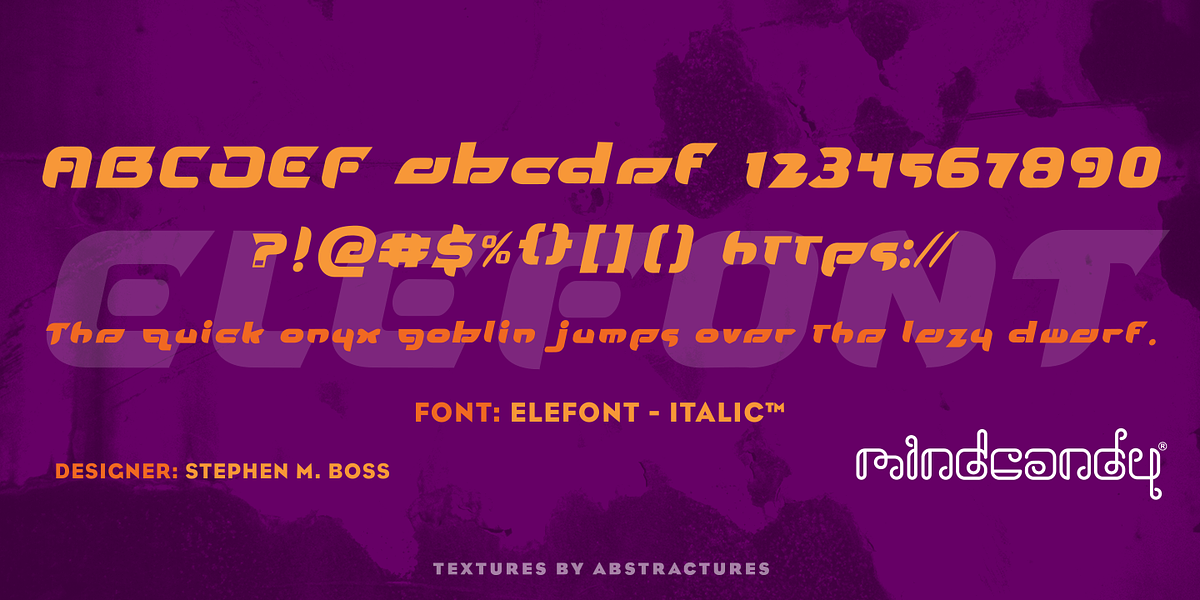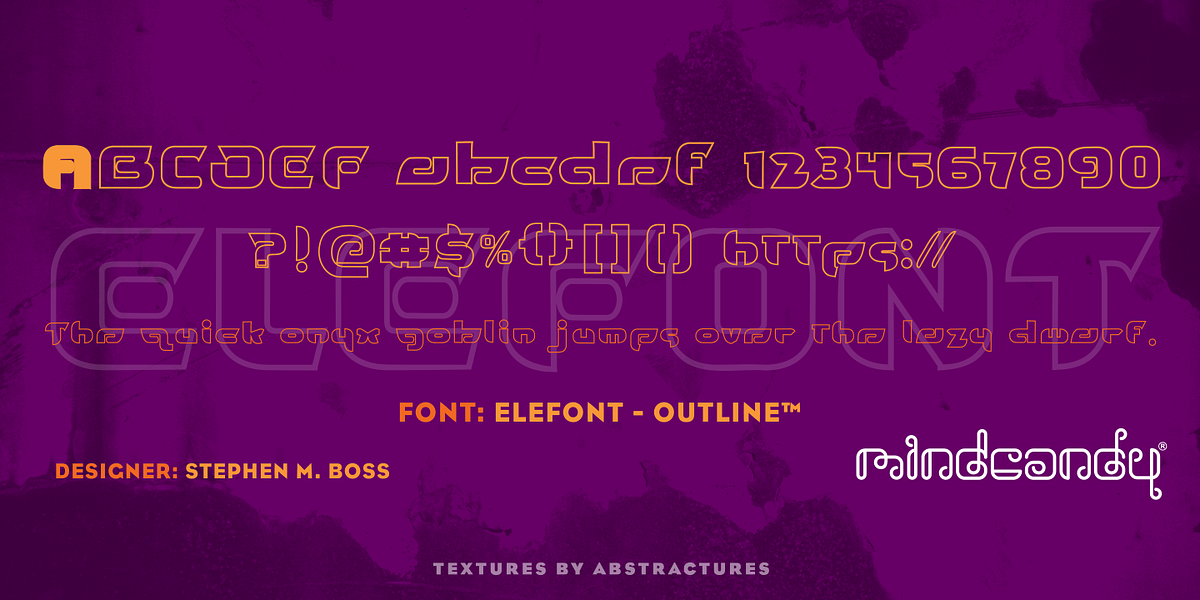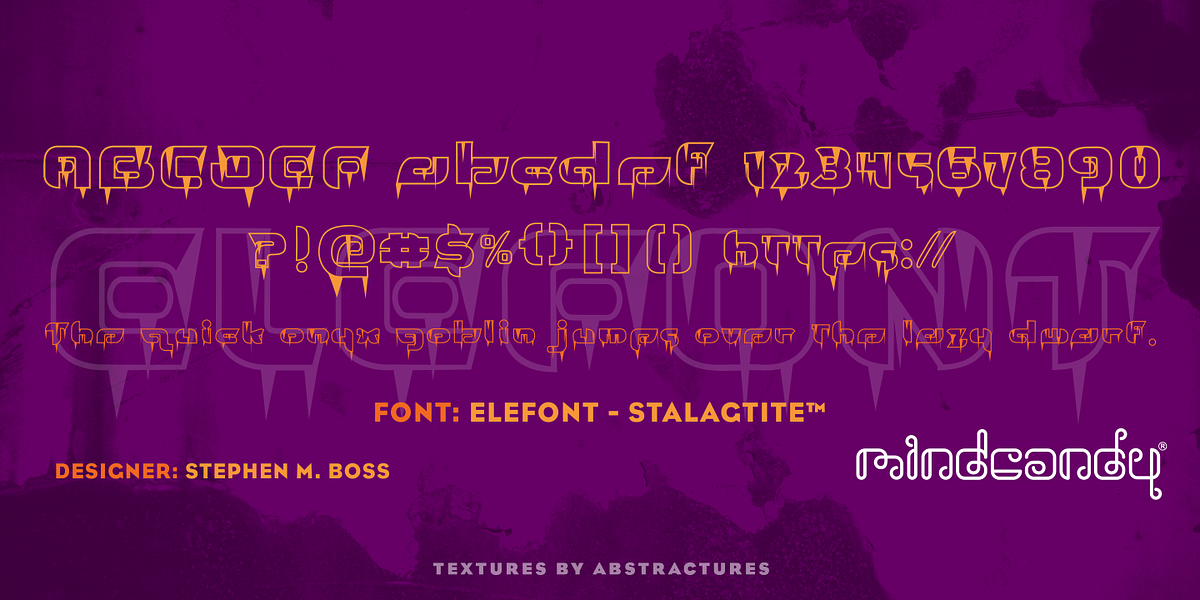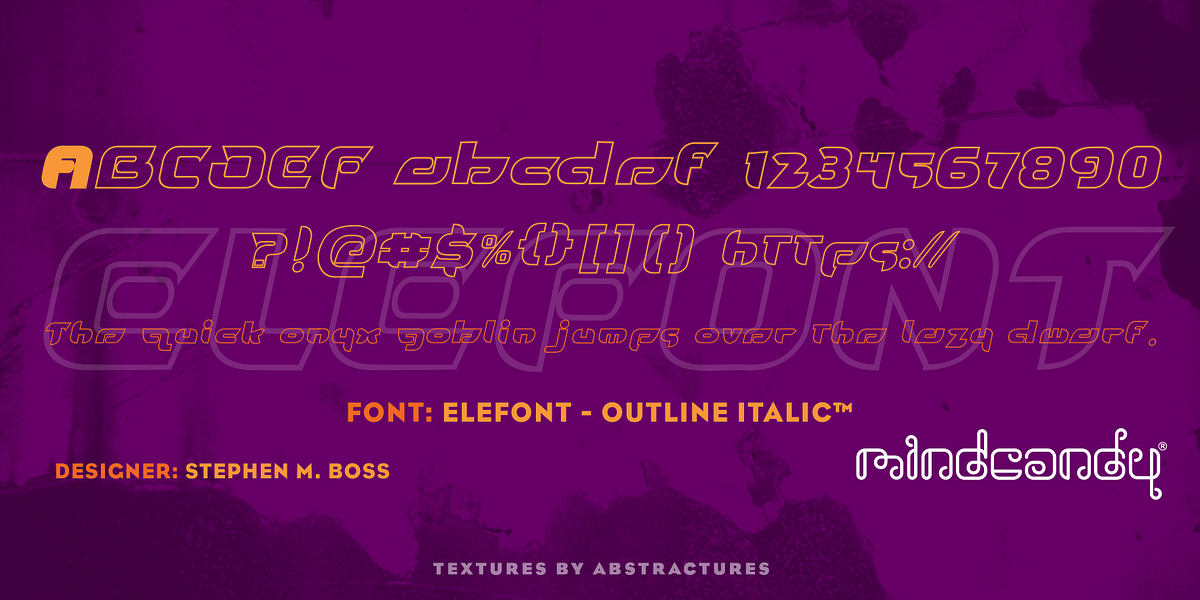
Elefont™
This font is a novelty display typeface designed by Stephen M. Boss. It evokes a sci-fi aesthetic and would be well-suited for headlines or branding projects seeking a futuristic feel.